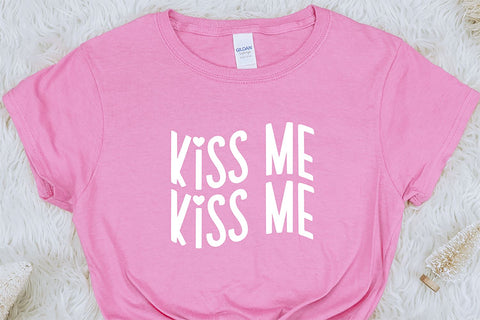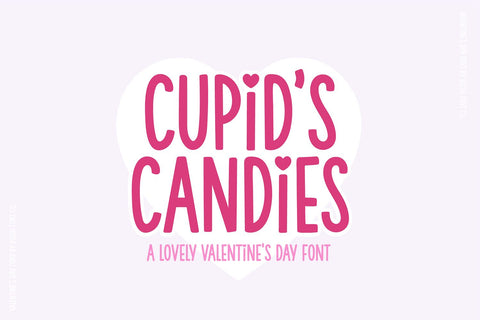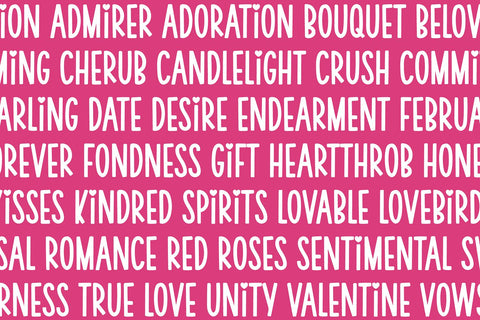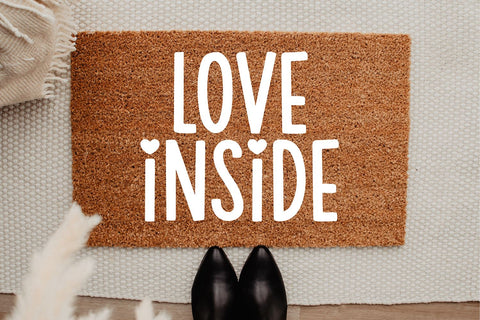
Cupid's Candies Valentine's Day Heart Font
Cupid's Candies Valentine's Day font
This font was made specifically for your Valentine's/Wedding projects. Use it for Valentine's cards, crafts for decor, invitations, and more!